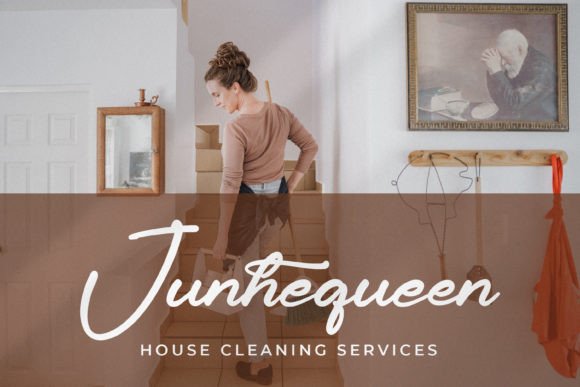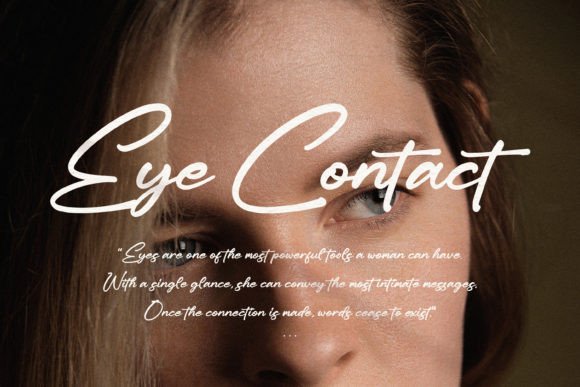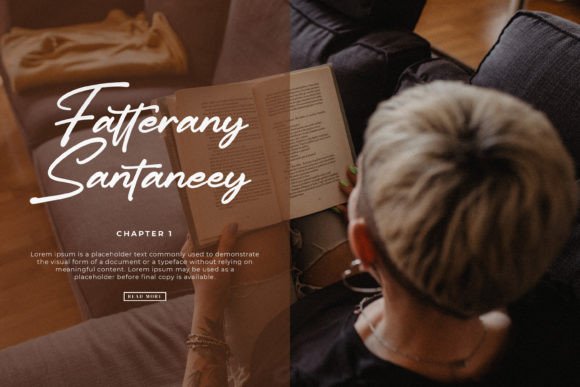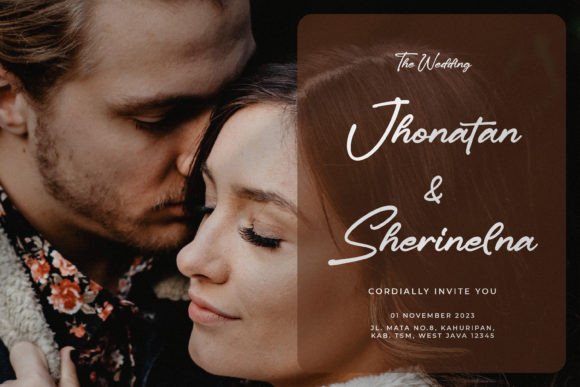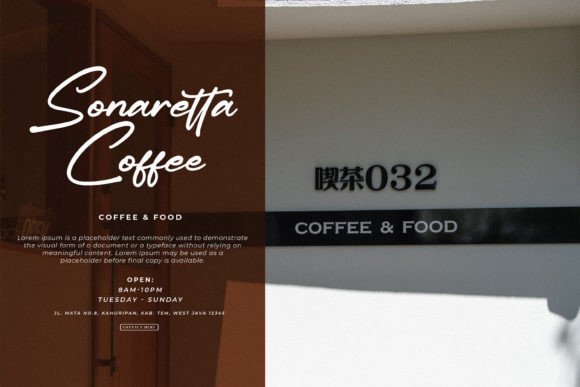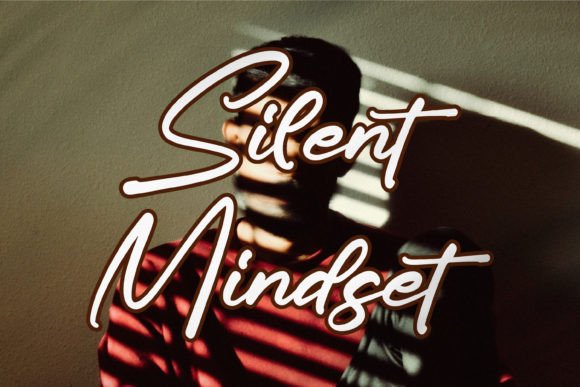
Unleash Your Creativity with Anettasya Mottarue Font
Have you ever stared at a blank canvas, waiting for the perfect spark to ignite your creativity? Perhaps it’s the whisper of a quote, the hum of a melody, or the gentle curve of a handwritten letter. For designers, this moment is all too familiar. It’s the moment when the perfect font can elevate an entire project, transporting it from ordinary to extraordinary.
Enter Anettasya Mottarue Font, a premium modern script font from Integritype Studio, designed to add a touch of luxury to any project. Whether you’re crafting logos, branding materials, or product packaging, this font is the perfect companion to bring your vision to life. With its elegant curves and refined texture, Anettasya Mottarue Font is a valuable addition to any designer’s toolkit, offering endless possibilities for creative expression.
Anettasya Mottarue Font Key Features
- Font Family: Anettasya Mottarue
- Unique Characteristics: Anettasya Mottarue features a unique blend of elegant and modern elements, with a subtle flair of sophistication and refinement
Anettasya Mottarue Font Review
I was excited to dive into the world of Anettasya Mottarue Font, and overall, I’m impressed. Here are some of the things that caught my eye: ✨
- Unique aesthetic: This font has a distinctive, dreamy quality that sets it apart from more traditional serif or sans-serif fonts.
- Perfect for creative projects: With its expressive curves and playful flair, Anettasya Mottarue Font is ideal for designers looking to add a touch of whimsy to their work.
- Good legibility: Despite its ornate feel, the font remains easy to read, even at smaller sizes.
- Limited compatibility: I found that Anettasya Mottarue Font works best in digital applications, but may not translate as well to print materials.
- No comprehensive character set: The font lacks some essential characters, such as currency symbols and mathematical operators, which may require additional downloads or workarounds.
Overall, I think Anettasya Mottarue Font is a great choice for designers who want to add a touch of personality to their work. While it may have some limitations, its unique aesthetic and good legibility make it a valuable addition to any design toolkit.
The Anettasya Mottarue Font is ideal for creative projects that require a unique and elegant touch. Some common use cases include:
– Book covers and literary works
– Artistic and creative projects